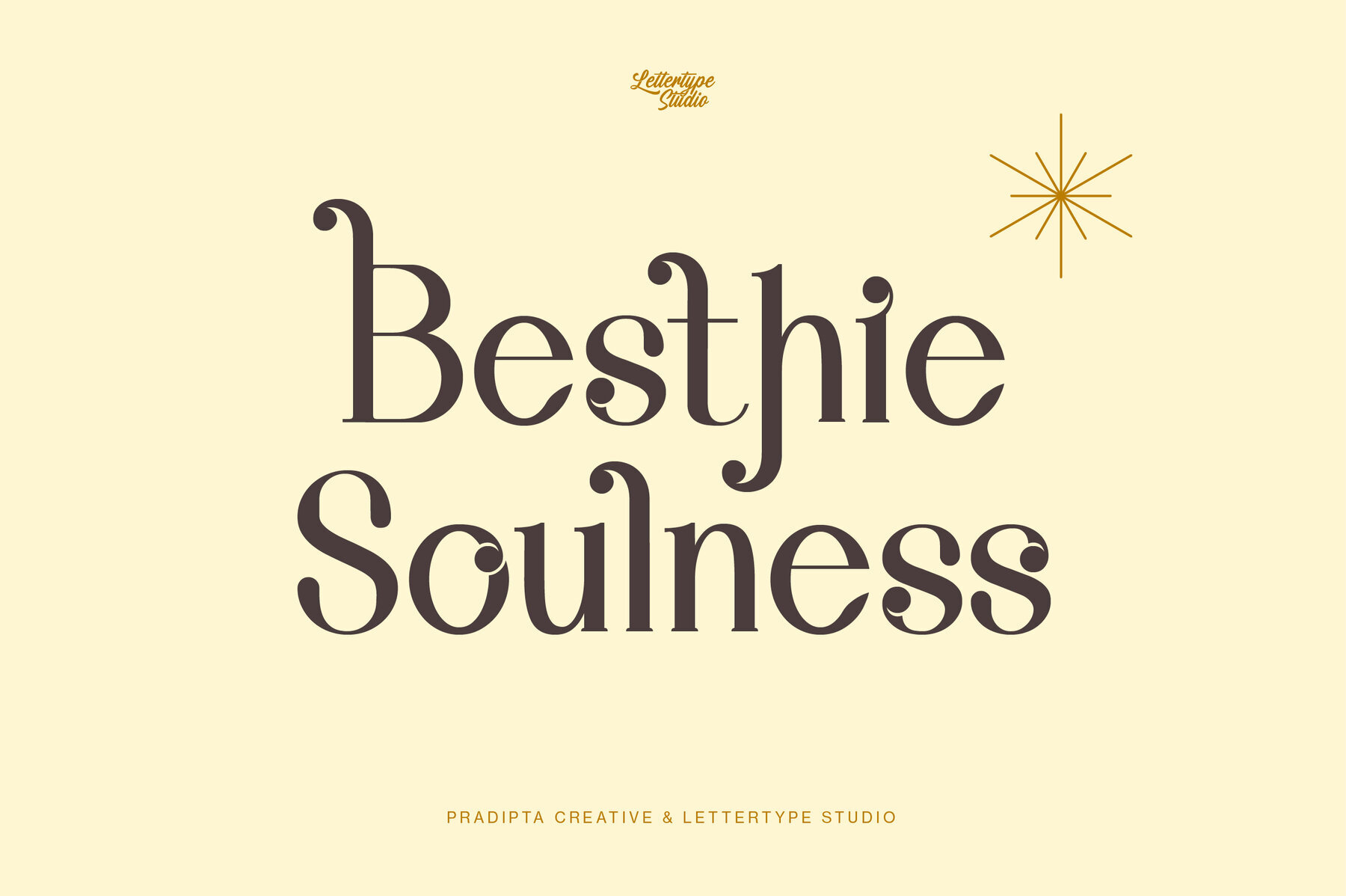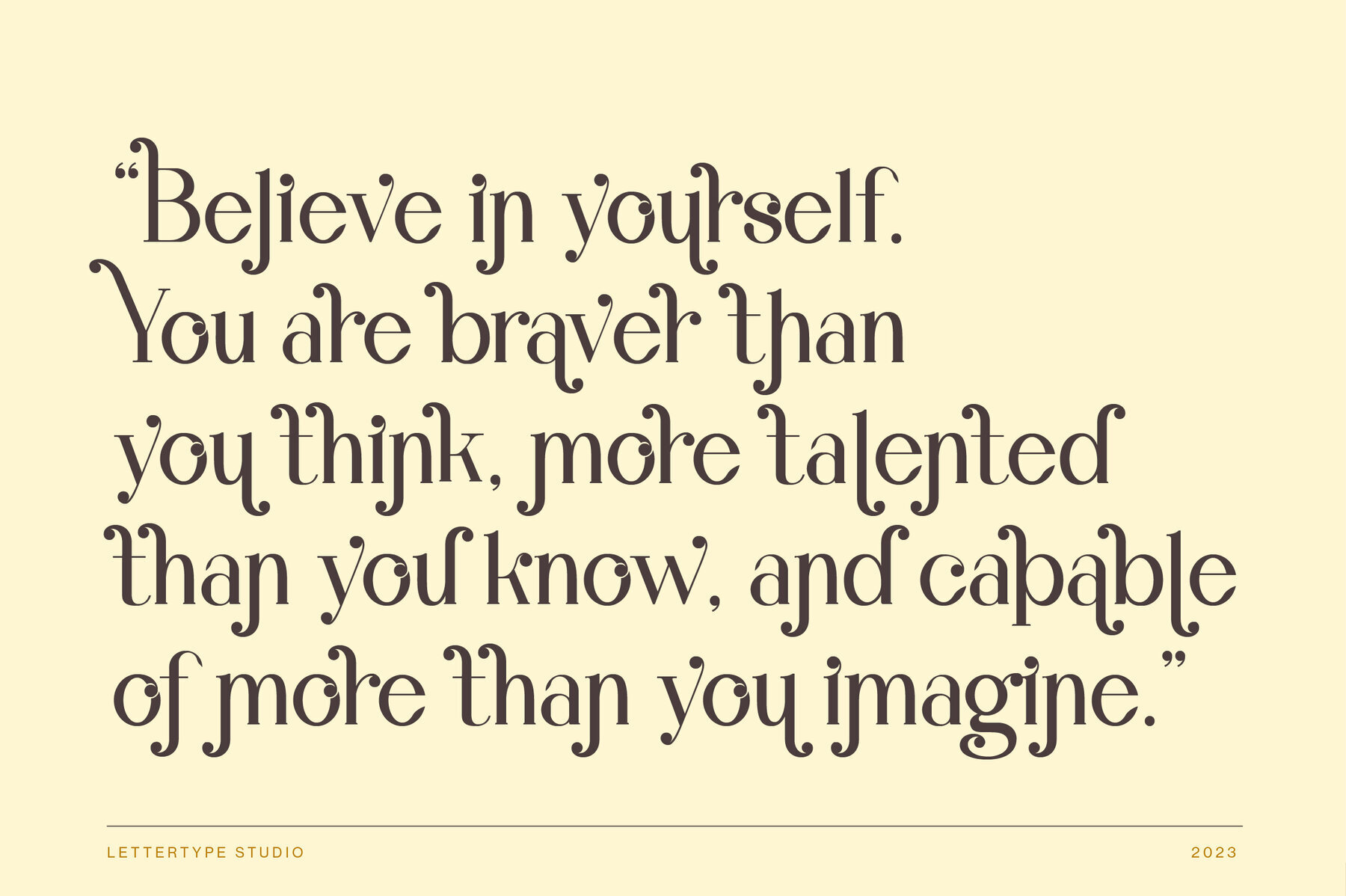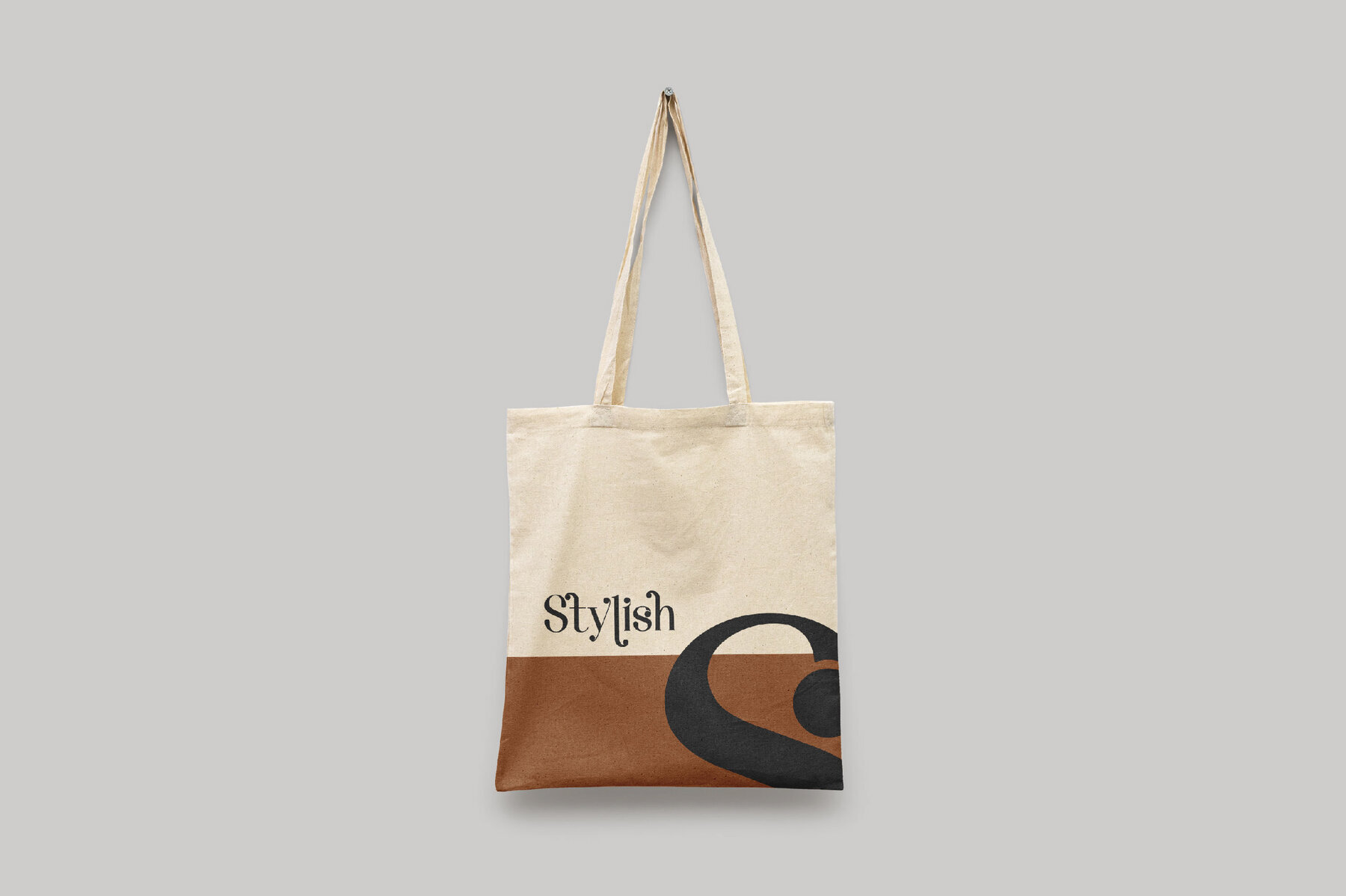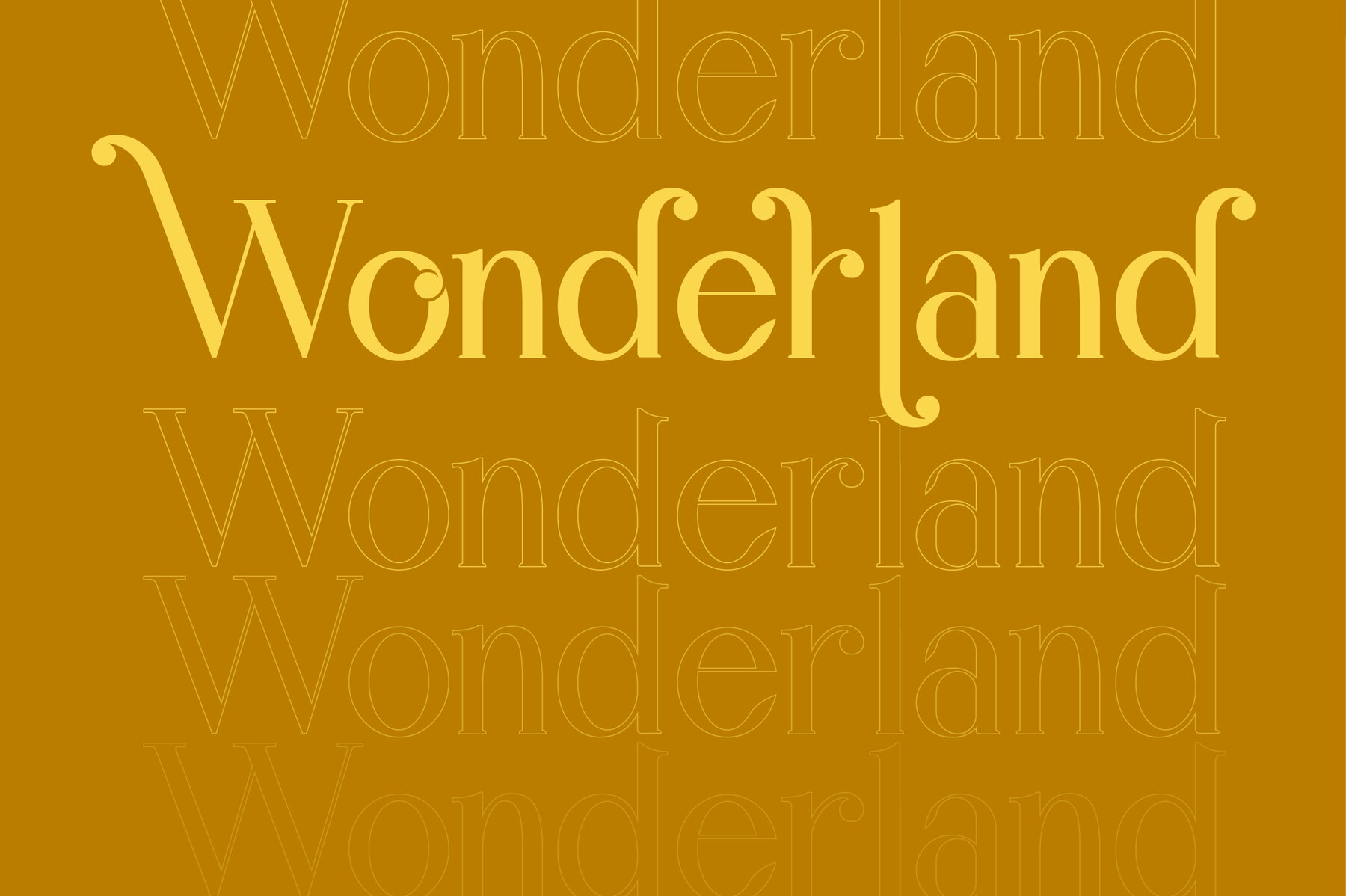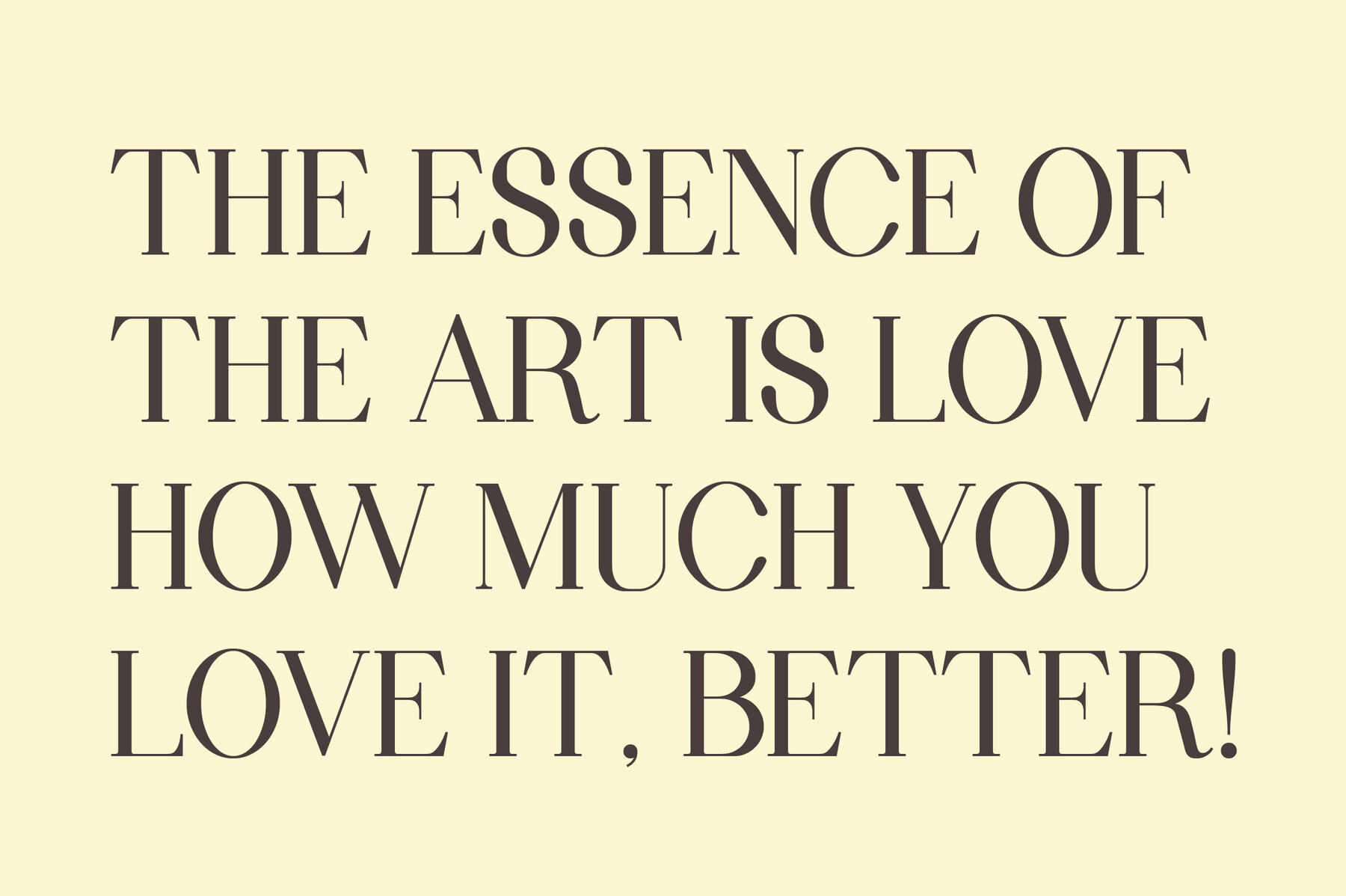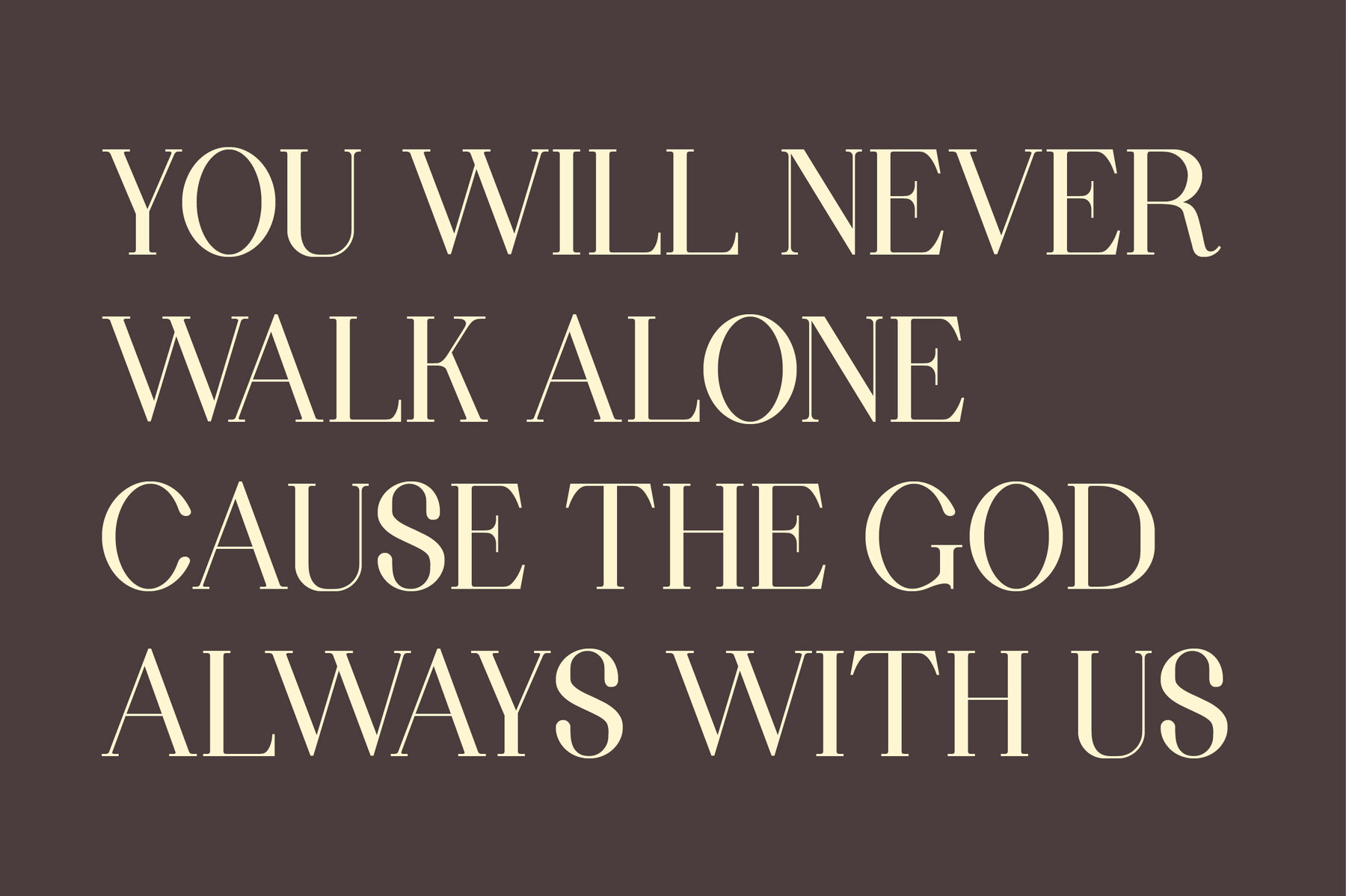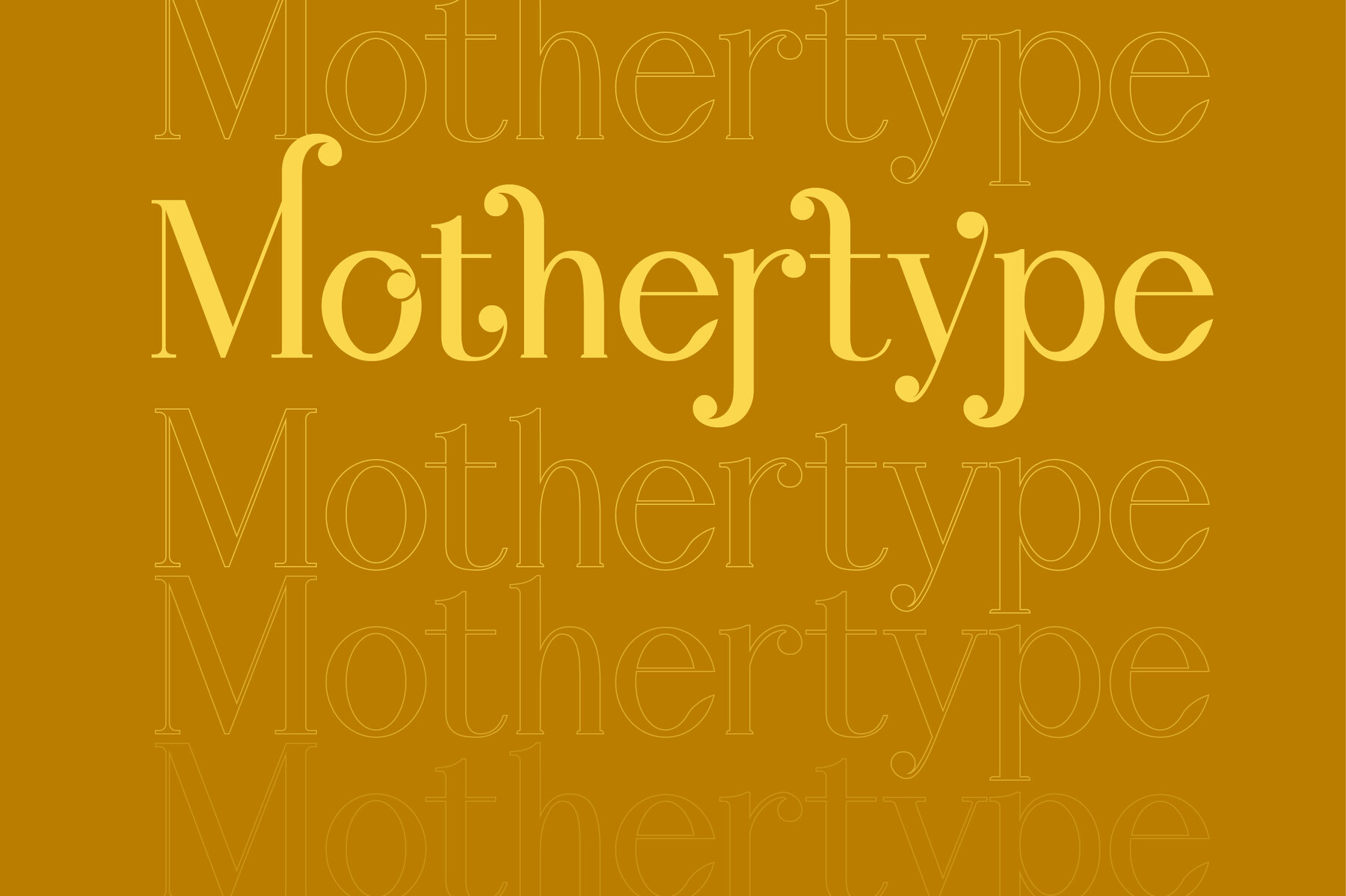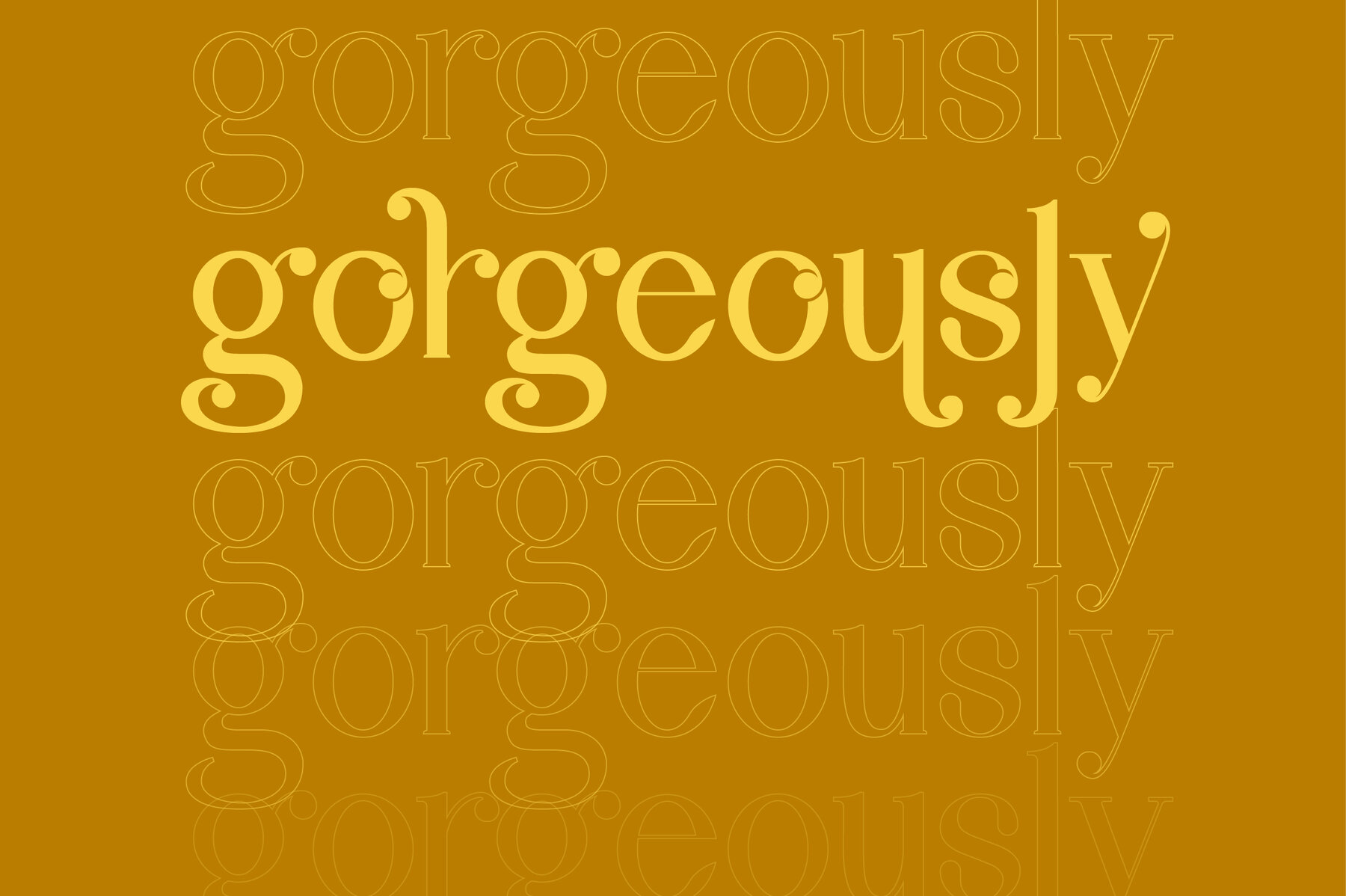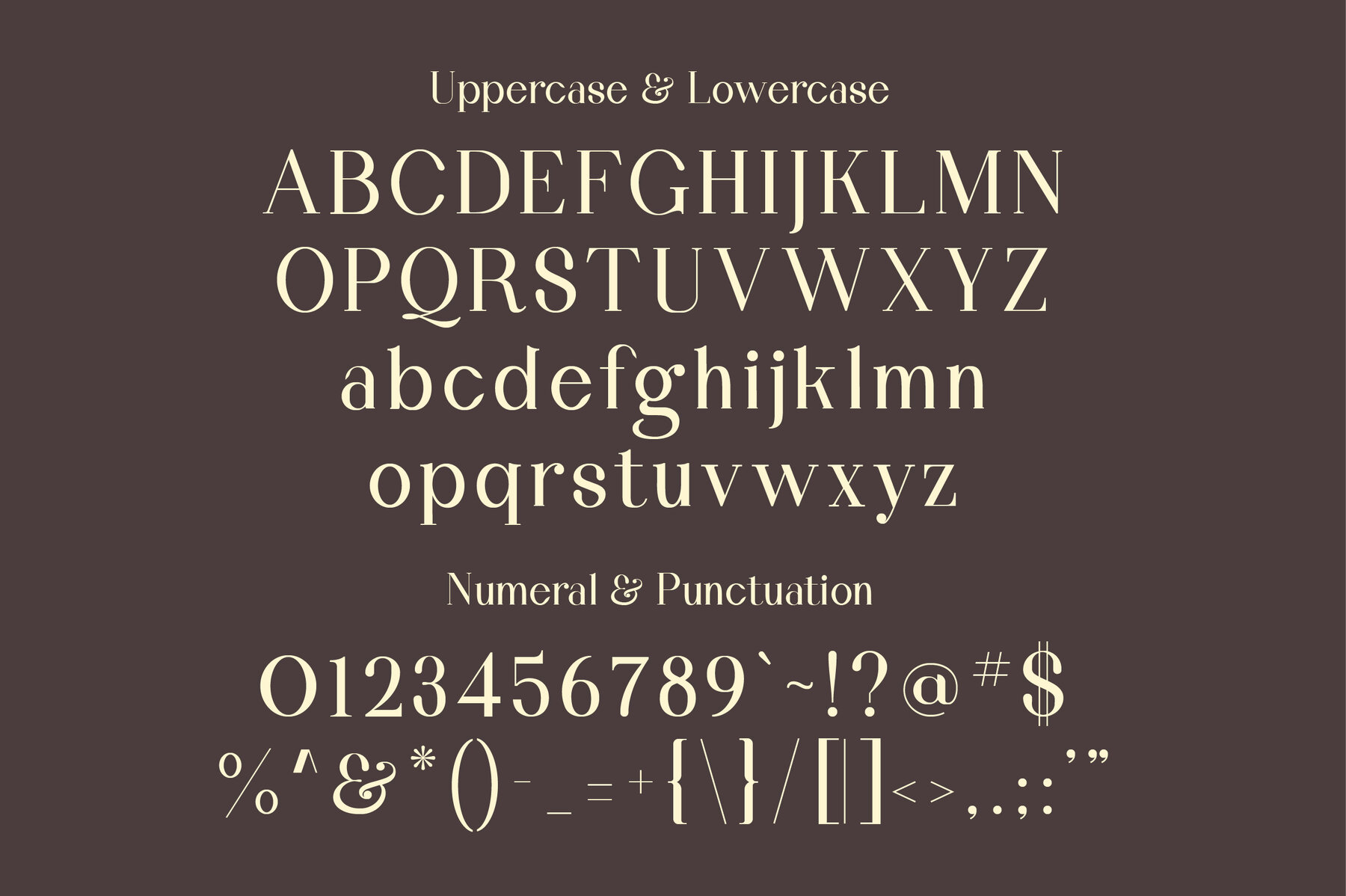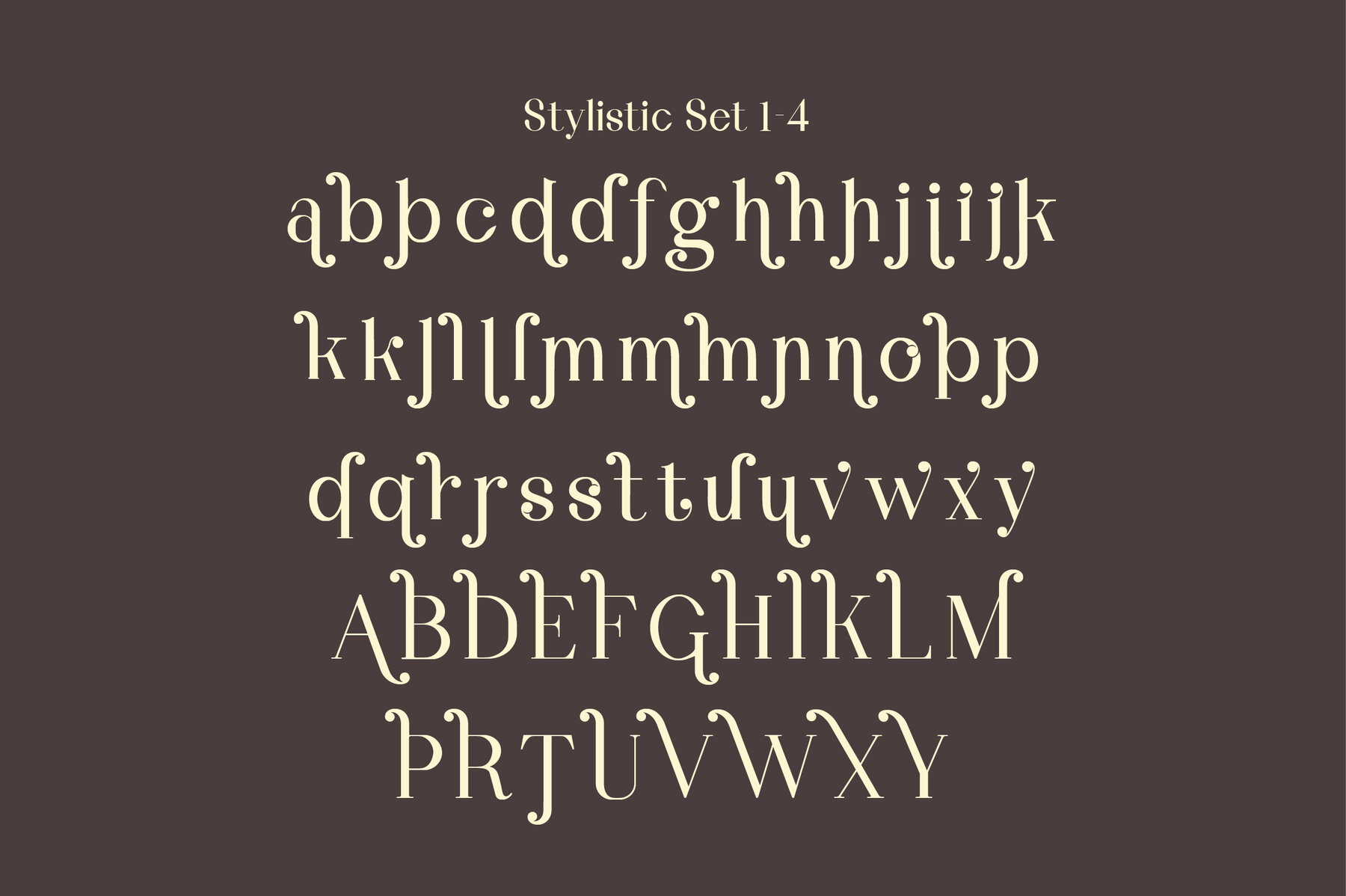
Besthie Soulness Font
Besthie Soulness Regular
Discover the timeless elegance of Besthie Soulness, a serif font that blends luxury with a classic yet modern flair. Perfect for elevating your design projects, this versatile typeface is ideal for logo creation, branding, apparel design, signage, posters, and more. Whether you're crafting wedding invitations or exploring fashion and cosmetic applications, Besthie Soulness adds a sophisticated touch.Besthie Soulness: Luxury Serif Font
Features of Besthie Soulness